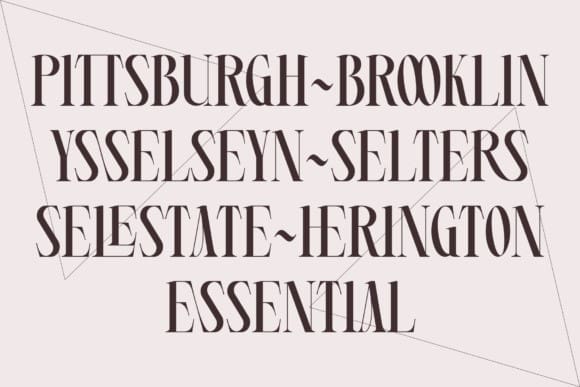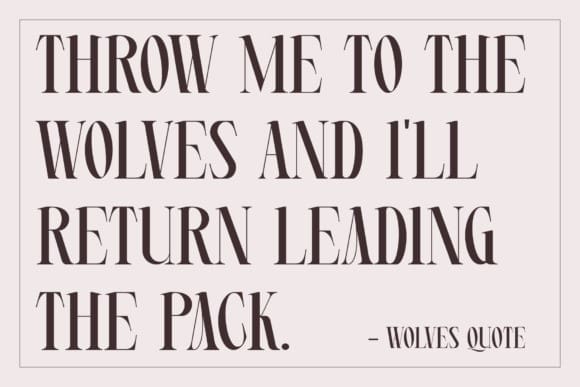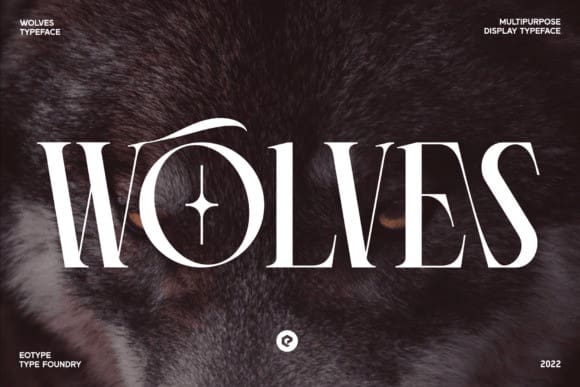
Wolves Font
Wolves Font is a serif condensed display font with a sleek and elegant appearance. This font is perfect for a variety of projects, such as branding, poster displays, logo designs, magazine covers, product labels, clothing, and more. Wolves is PUA encoded which means you can access all the glyphs and ligatures with ease!